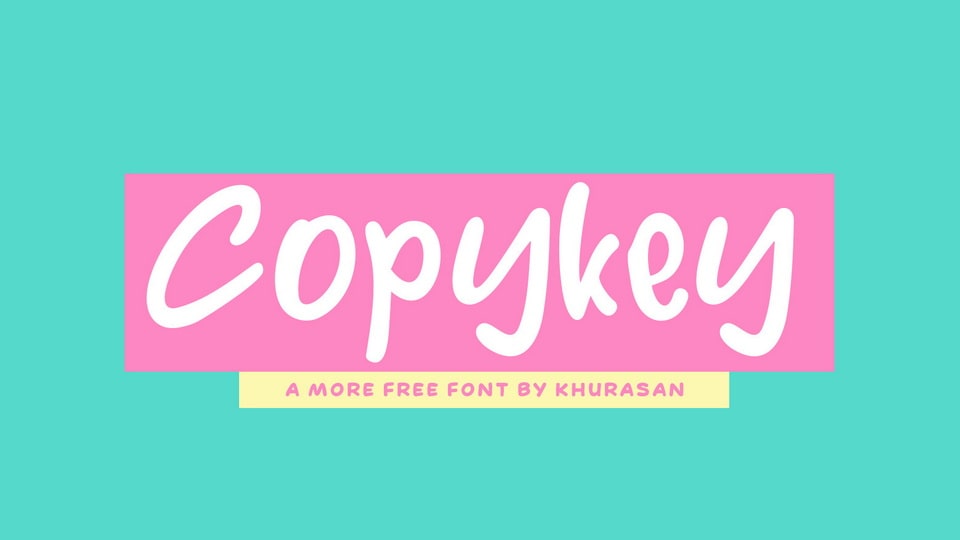
Feb 2, 2025Script & HandwrittenCopykey Font Copykey is a simple and natural handwritten font created to bring good vibes. Whether you need it for notes, quotes, books, or blogs, the font is the perfect choice for a truly authentic look. Font DetailsDesigned by: Khurasan (Syafrizal)WebsiteLicense: Free for commercial use Download Copykey FontFile size: 260.36 KBCreated: February 16, 2025Updated: February 16, 2025 Download Explore similar fonts Gotta Illusy Font Family Borghan Font Billy Font Cocktail Party Font Oregano Font Chastel Reid Font # Casual# Comic# Hand-drawn# Handwriting More fonts by Khurasan (Syafrizal)Fontrue FontDisplay Plan FontLemon Shake Shake FontGunken FontApasih FontSunday Orange FontHope Club FontBackso Font